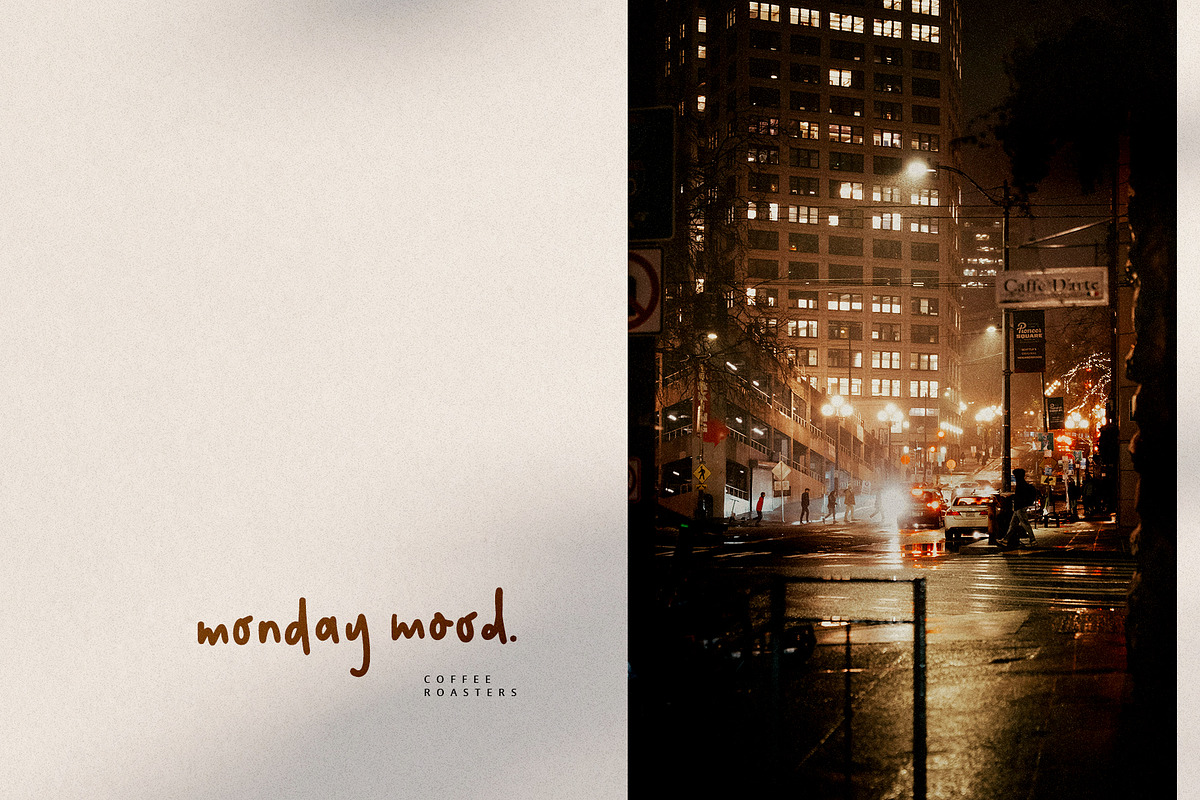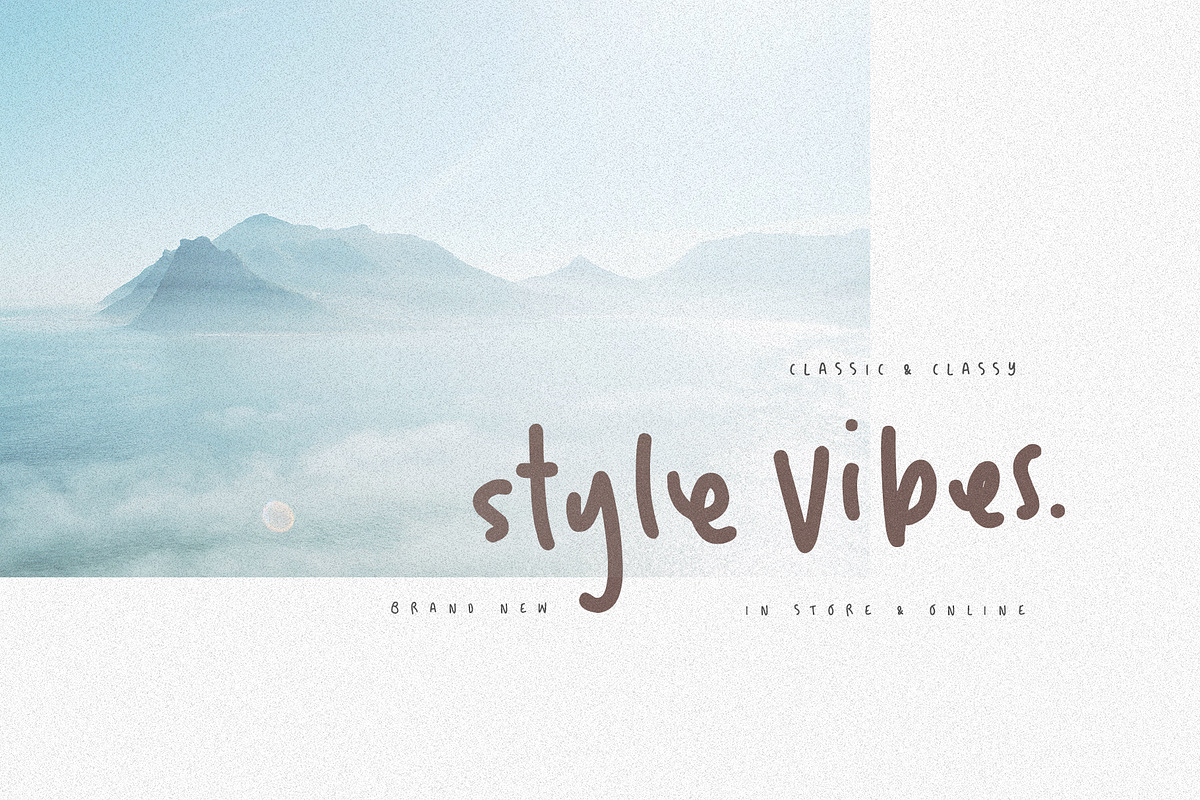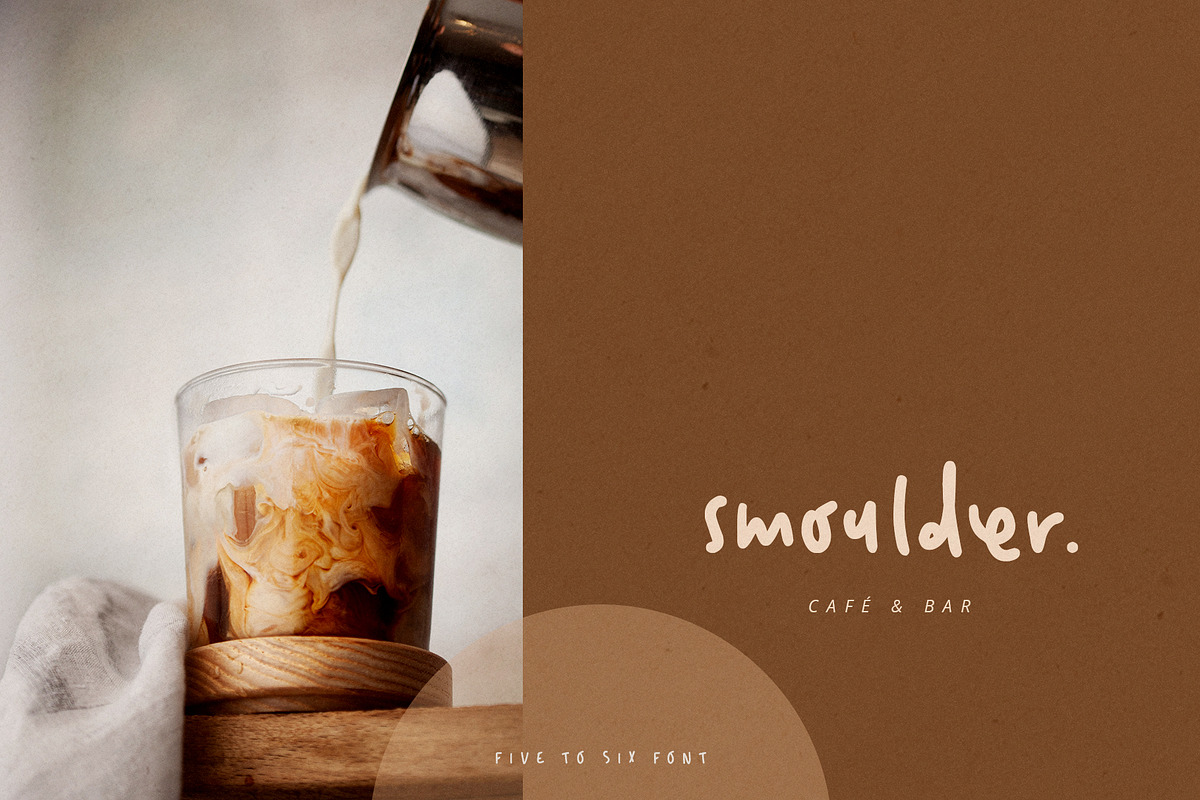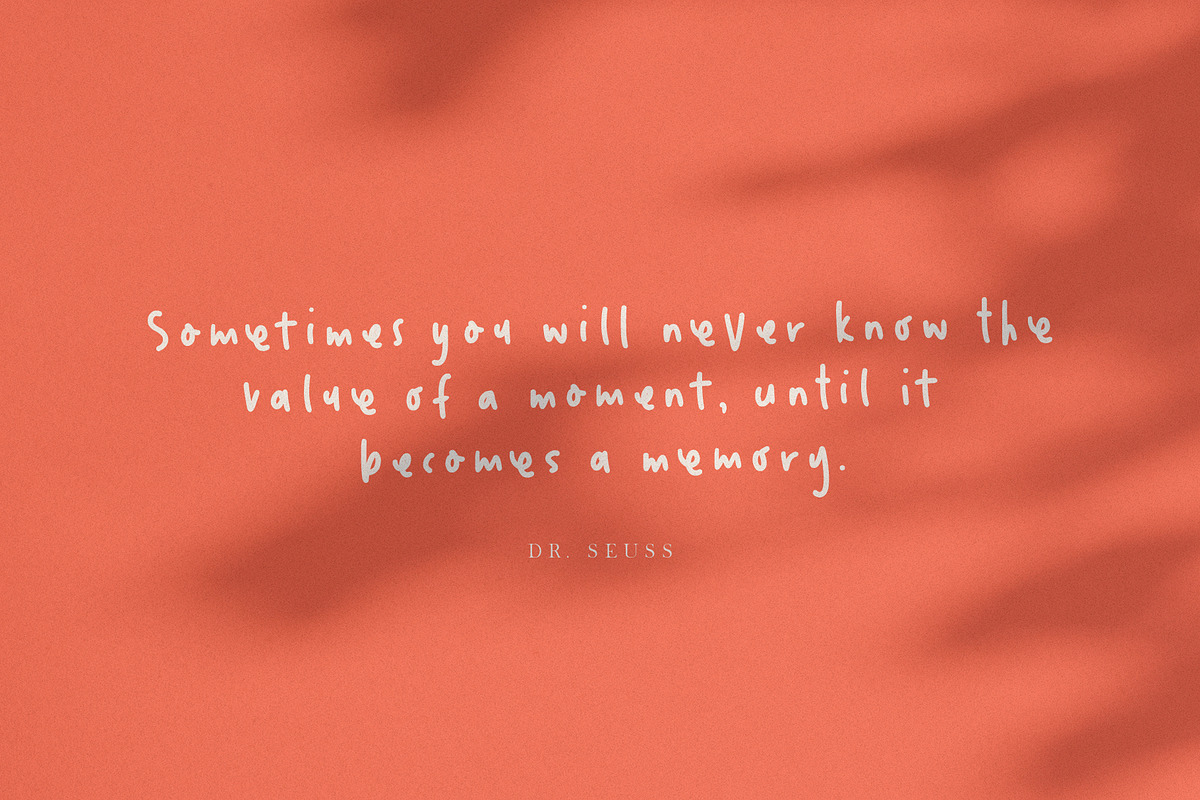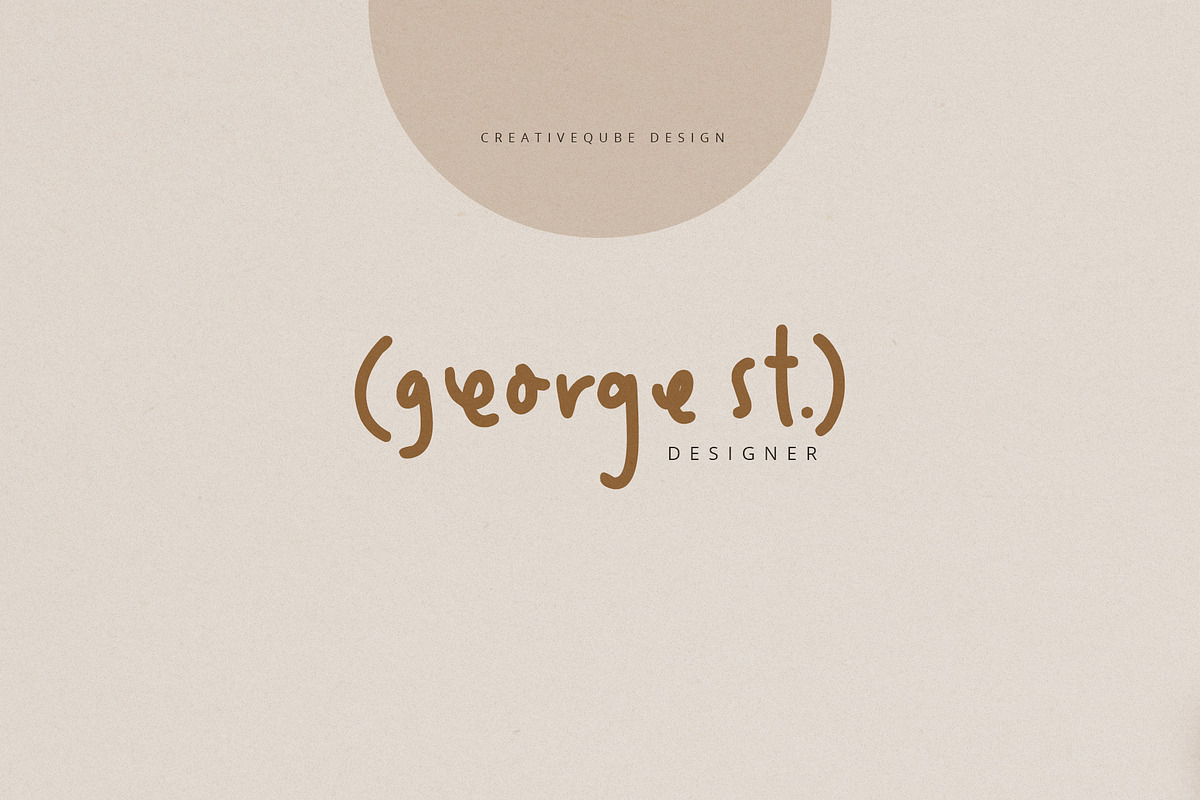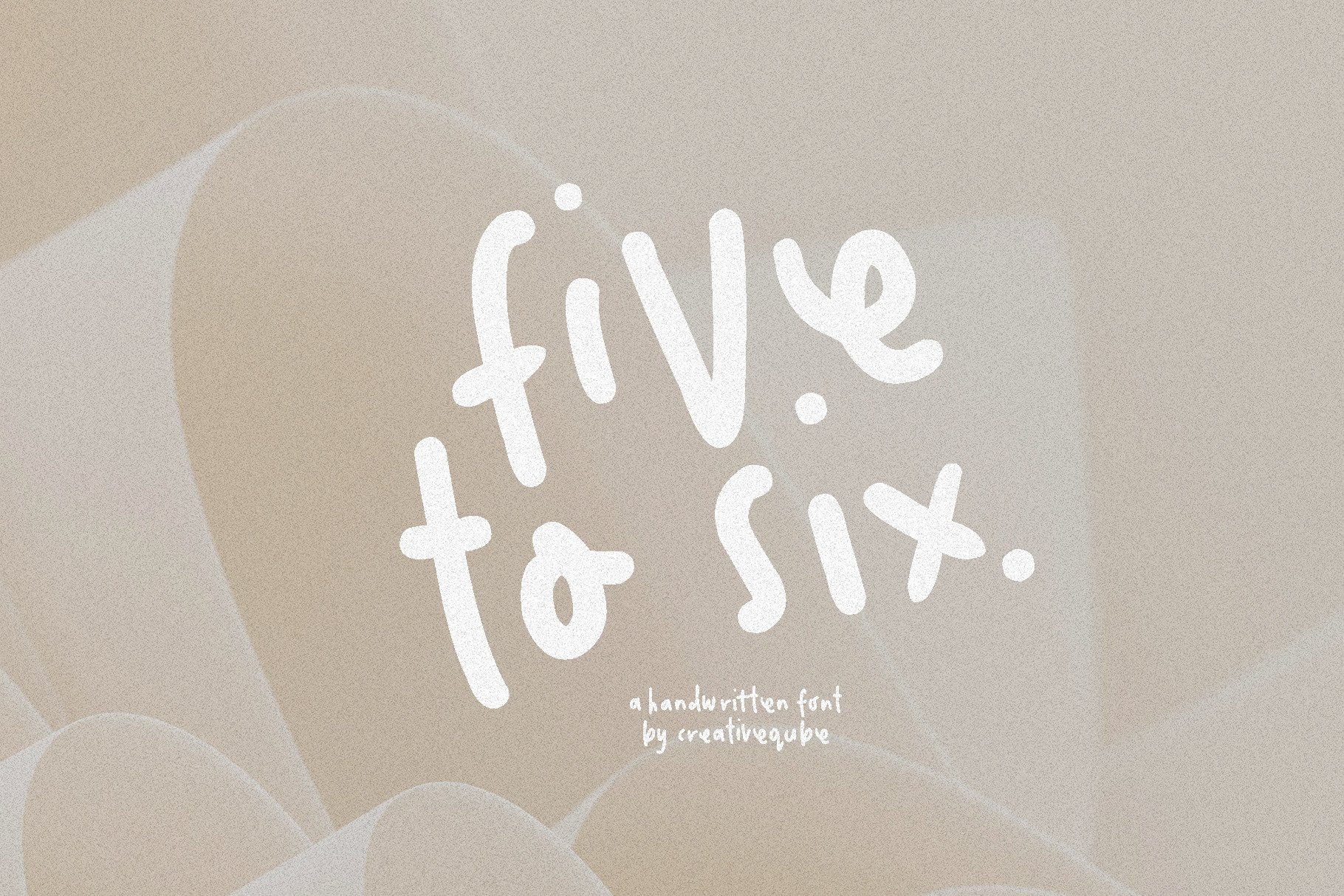
Five to six handwritten font
Five to Six – Handwritten Cute & Trendy Font for Your Creative Projects
Add a touch of personality and charm to your designs with Five to Six, the perfect handwritten font with a cute, trendy twist! Whether you're creating invitations, social media posts, logos, or merchandise, this font will give your work a fresh, modern feel.
Five to Six blends playful curves and stylish lines, making it versatile for everything from casual to professional designs. Its unique handwritten look is perfect for giving your projects that custom, personal touch.
Uppercase & lowercase letters
Why You'll Love Five to Six:
Playful & Trendy: A modern, handwritten style that’s perfect for adding fun to your designs.
Versatile: Ideal for invitations, branding, websites, merchandise, and more!